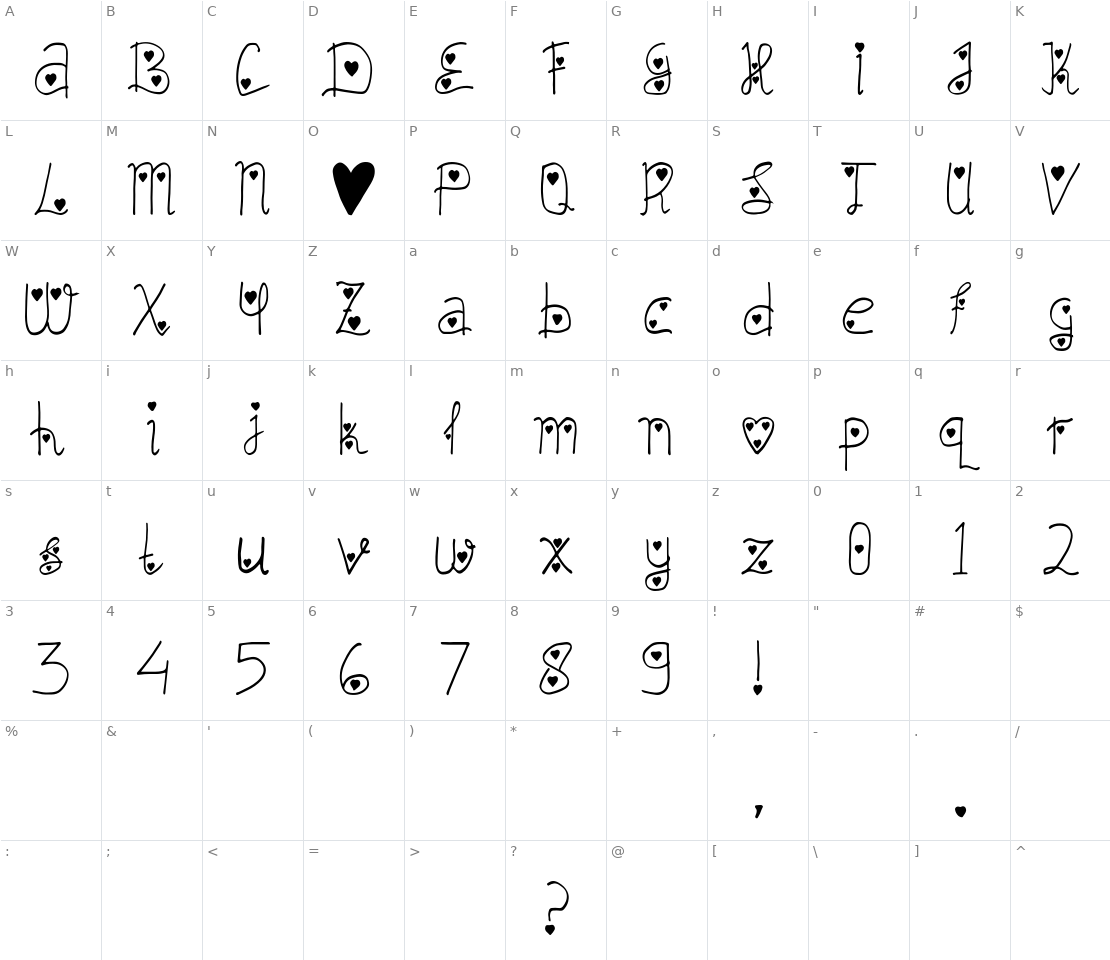
Velove
by Ditya Ananto
Velove is a thin, decorative display face by Ditya Ananto that weaves heart shapes into its letterforms, giving it an unmistakably romantic, Valentine's Day personality. The strokes are delicate and whimsical with a feminine lean, keeping things playful rather than saccharine. Best for greeting cards, wedding stationery, love-themed branding, and seasonal designs where the heart motif can do its thing.